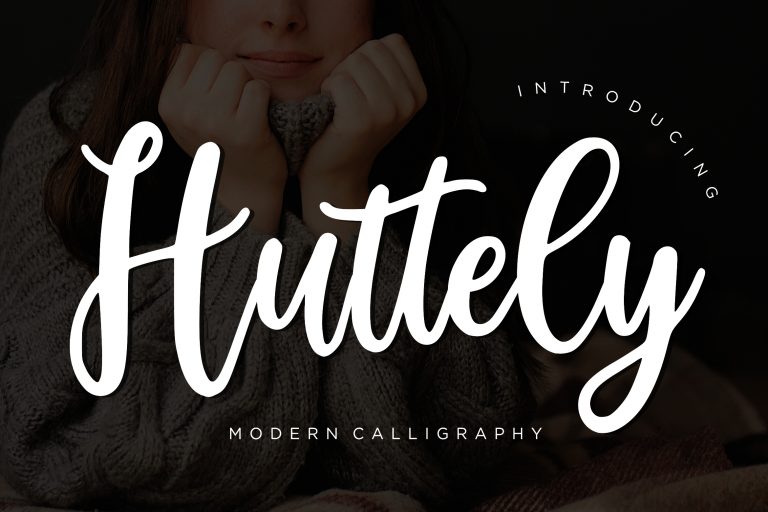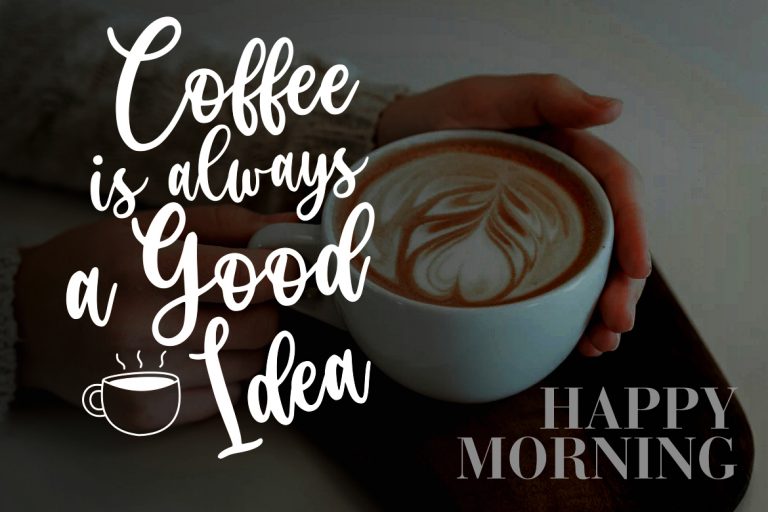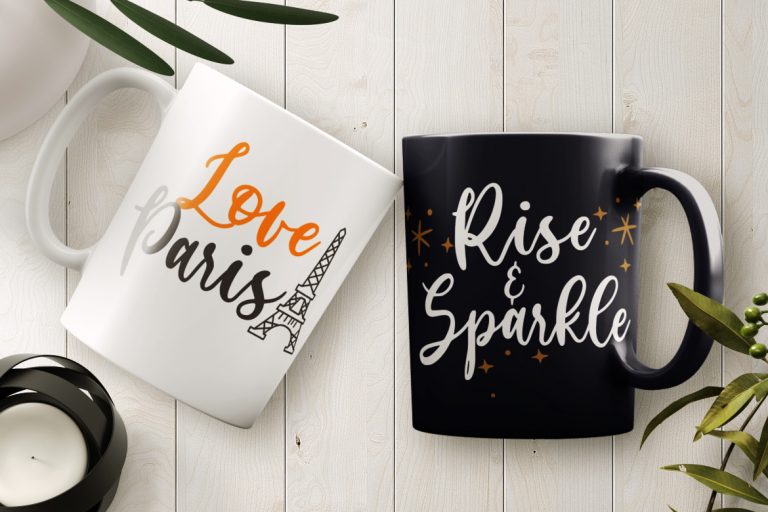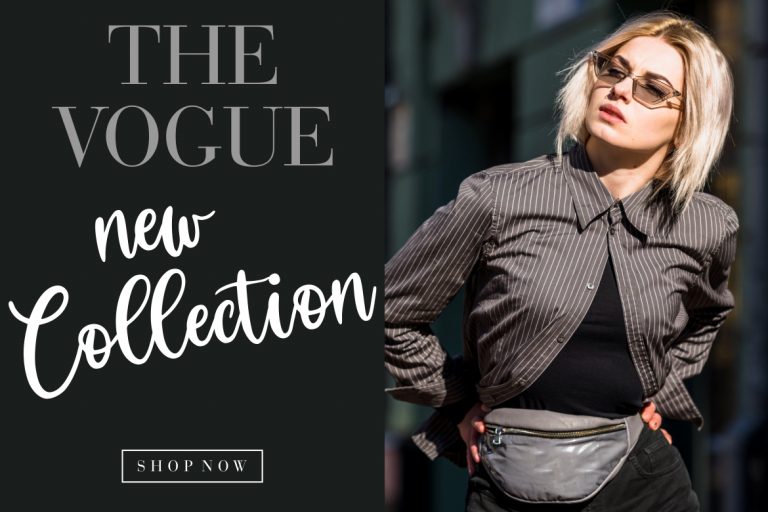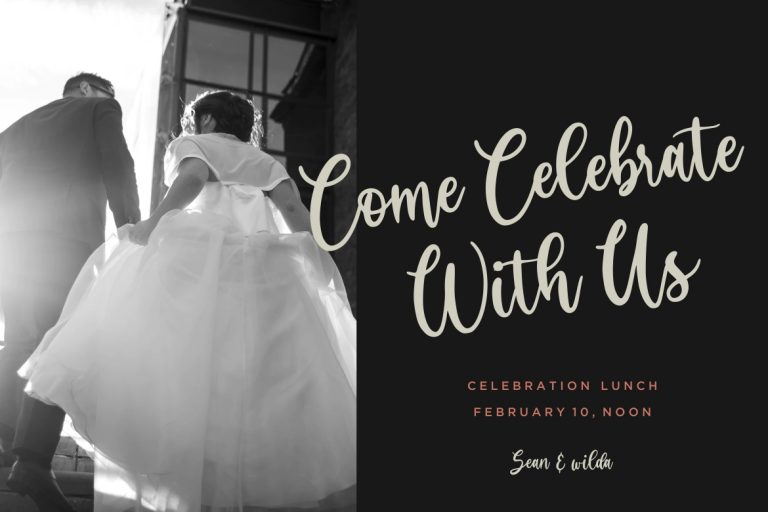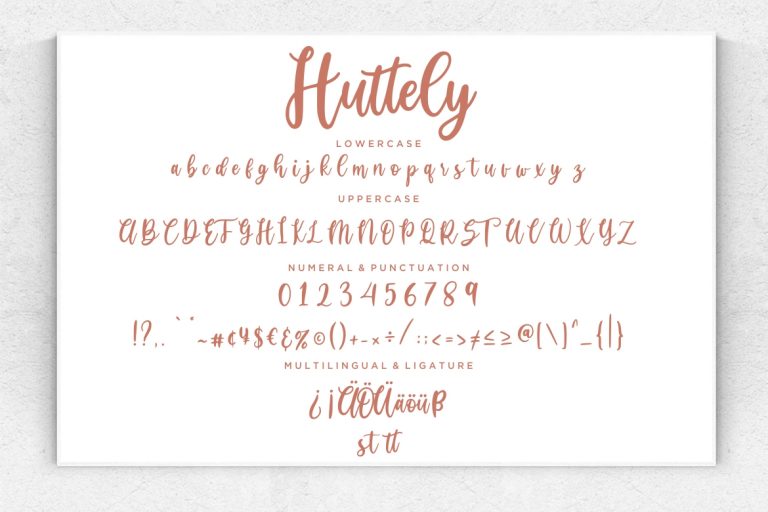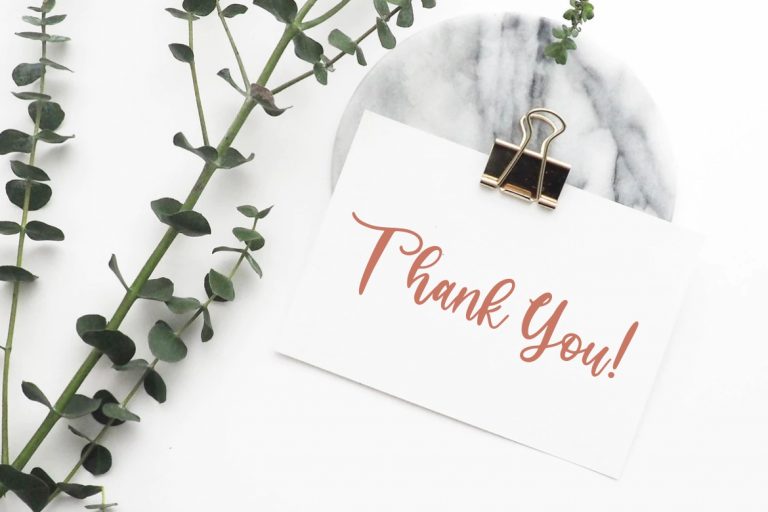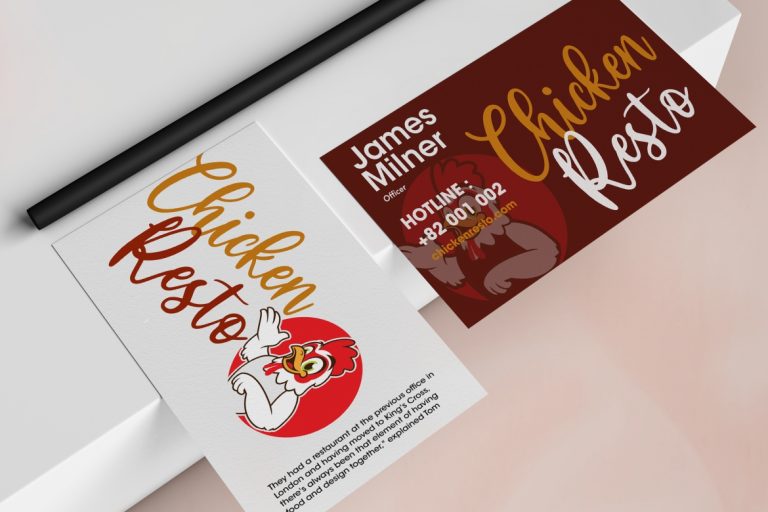
Huttely is modern calligraphy font perfect for any stylish your latest project.
Huttely is perfect for branding projects, logo, wedding designs, social media posts, advertisements, product packaging, product designs, label, photography, watermark, invitation, stationery and any projects that need handwriting taste.
• Fonts include multilingual support for; ä ö ü Ä Ö Ü ß ¿ ¡
Huttely Modern Calligraphy